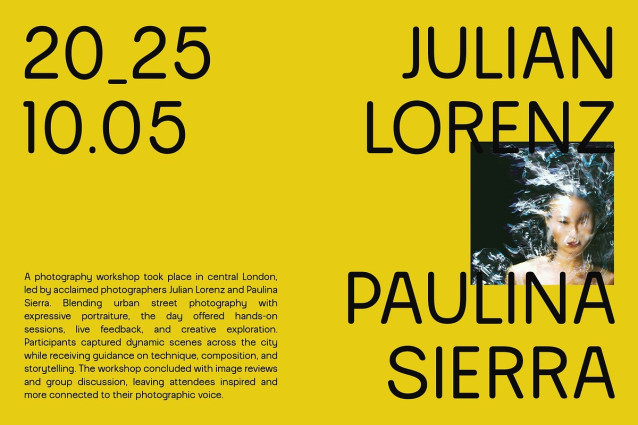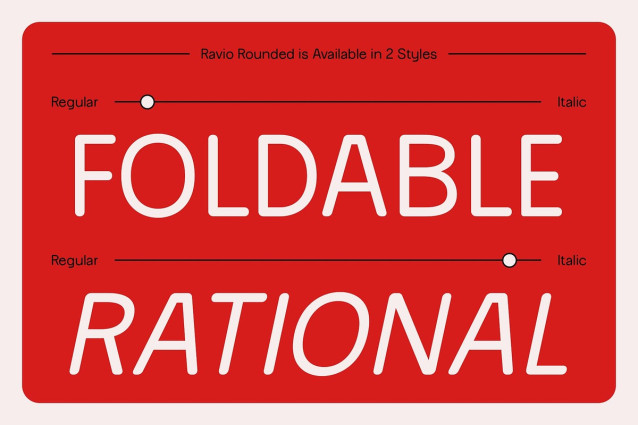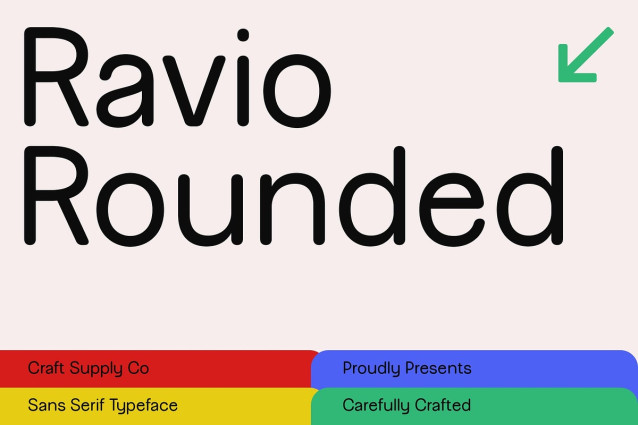
Ravio Rounded Font
Ravio Rounded Font is a modern sans serif font designed with a precise geometric structure, delivering a look that’s both orderly and contemporary. Its clean, slim forms and careful spacing ensure clarity and visual harmony, ideal for projects that require a neat, structured aesthetic with strong readability.
Rounded Terminals for a Friendly Tone While the geometry gives Ravio a professional base, the rounded terminals soften its appearance—adding a friendly, human touch. This detail makes the font feel more welcoming and versatile, striking the perfect balance between modern minimalism and emotional warmth.
Minimalist, Efficient, and Highly Readable Ravio’s overall design promotes efficiency and legibility, making it highly effective for digital environments, from user interfaces and app design to clean branding and visual communication. It supports concise messaging and clean layouts without appearing cold or sterile.
Ideal for Human-Centered Digital Design Whether you’re crafting a tech product, lifestyle brand, corporate identity, or editorial layout, Ravio Rounded adapts seamlessly. Its precise yet personable tone ensures your content feels both professional and approachable, aligning perfectly with modern design values.
Conclusion: A Clean Typeface with Character Ravio Rounded merges geometric clarity with rounded softness, offering a typeface that’s both technically sound and emotionally resonant. It’s the perfect choice for forward-thinking designs that value precision, friendliness, and clarity in one cohesive typographic voice.